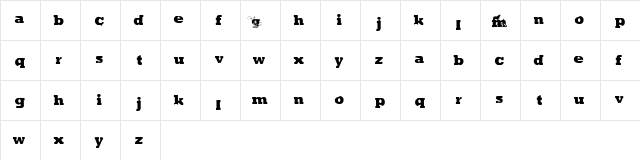
GREEN MIND TRIAL
| Foundry | Billy Argel |
| Designer | Billy Argel |
GREEN MIND takes a measured approach to typography — its balanced proportions and neutral character make it a reliable workhorse for both digital and print work.